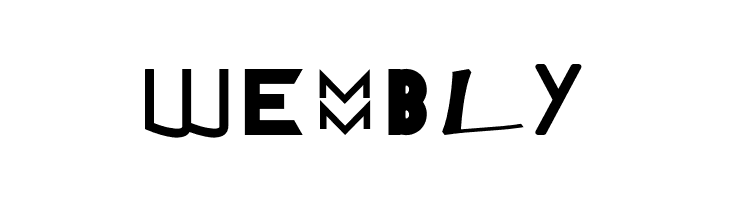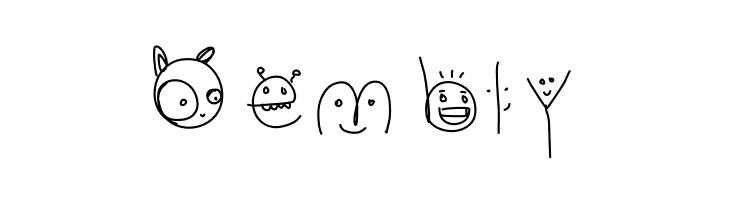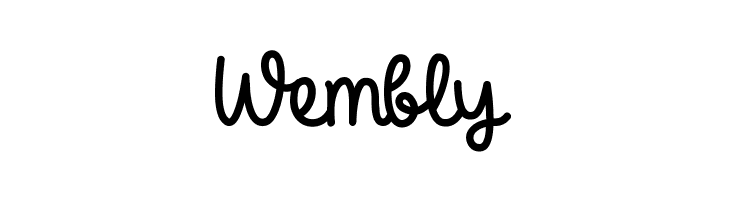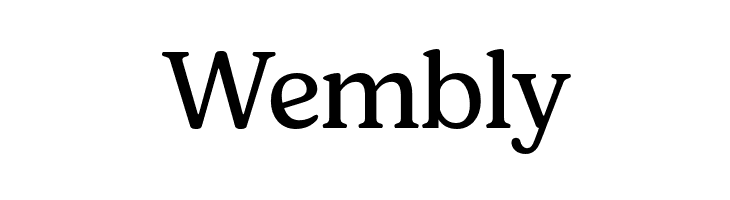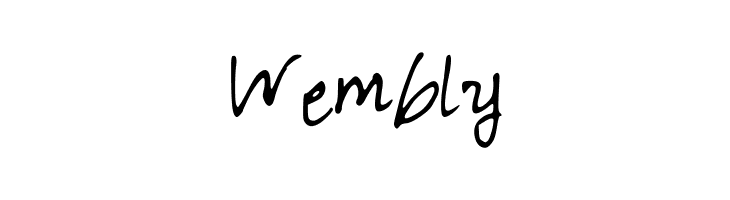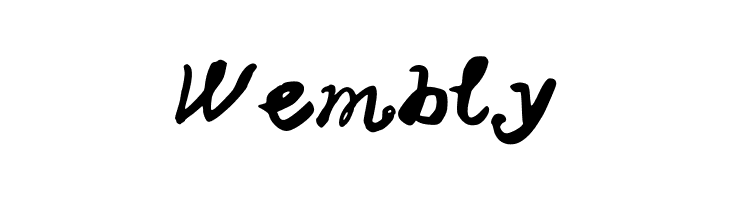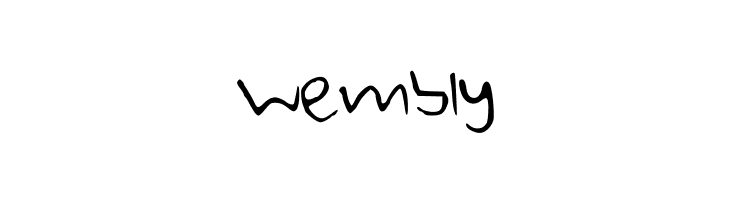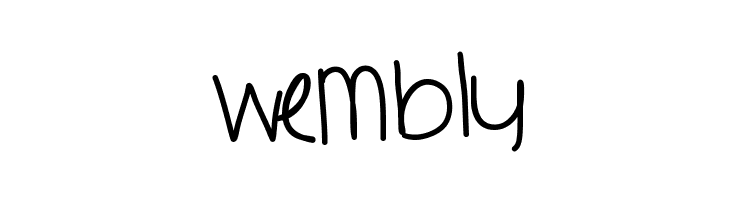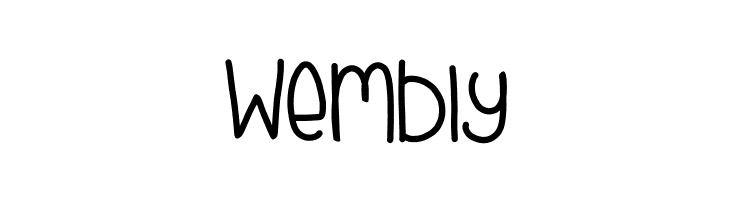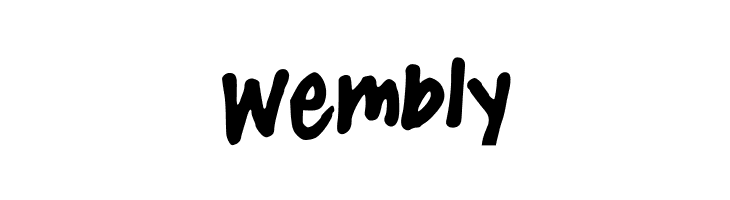
( Byieshination )
A playful, cat-themed font with hand-drawn, whimsical characters.
A lively, handwritten font with a playful and informal style.
A playful, handwritten font with smooth, flowing curves and a casual style.
( Charlee Sathiraboot )
A playful, handwritten font with a whimsical and friendly style.
( Charlee Sathiraboot )
A playful, handwritten font with a whimsical and informal style.
( Charlee Sathiraboot )
A whimsical, handwritten font with playful curls and decorative elements.
A whimsical, artistic font with elongated strokes and playful design.
A decorative font with geometric and artistic elements, blending modern and vintage styles.
( Fonts by Charlie Lbrth )
A playful, hand-drawn font with rounded edges and a whimsical style.
( Fonts by Des Gomez )
A playful, handwritten font with rounded edges and a casual style.
A playful, handwritten font with a whimsical and friendly style.
A classic serif font with elegant curves and medium contrast, suitable for versatile applications.
( Fonts by MonkeyRoodles Fonts )
A playful, handwritten font with a casual and whimsical style.
A playful, hand-drawn font with whimsical characters and decorative doodles.
A decorative and eclectic font with unique, artistic characters.
A playful, handwritten font with a casual and dynamic style.
( shizumiyuki.tumblr.com )
A playful, hand-drawn font with rounded, consistent strokes and a casual style.
( Benjamin Wyler )
A playful, dotted line font with a whimsical, hand-drawn style.
A chess-themed icon font with bold, geometric piece designs.
A sketchy, hand-drawn font with textured, overlapping strokes.
A modern serif font with elegant and refined letterforms.
A modern, clean sans-serif typeface with consistent stroke width and balanced spacing.
A modern, medium-weight sans-serif font with an italic style and clean lines.
( Des )
A playful, whimsical handwritten font with charming embellishments.
A playful handwritten font with a casual and friendly style.